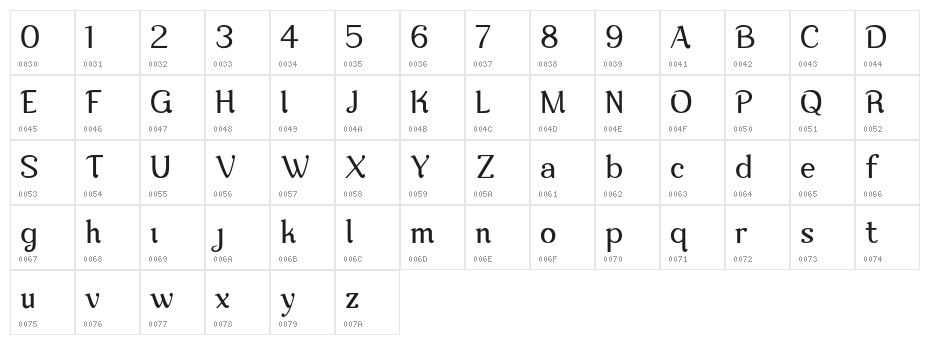
Nova-Classic-Personal-Use-Only Regular Font
This font features a classic serif style with a modern twist, characterized by its elegant curves and distinct serifs. The uppercase letters exhibit a traditional formality, while the lowercase letters maintain a smooth and flowing appearance. The numerals are clear and balanced, making them easily readable. Special characters are designed with the same attention to detail, ensuring consistency throughout. The overall design is sophisticated, making it suitable for a variety of applications where a touch of elegance is desired.
| Proposed Projects | Ideal for book covers, formal invitations, branding, and editorial design. |